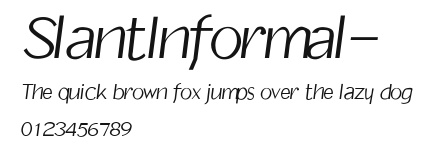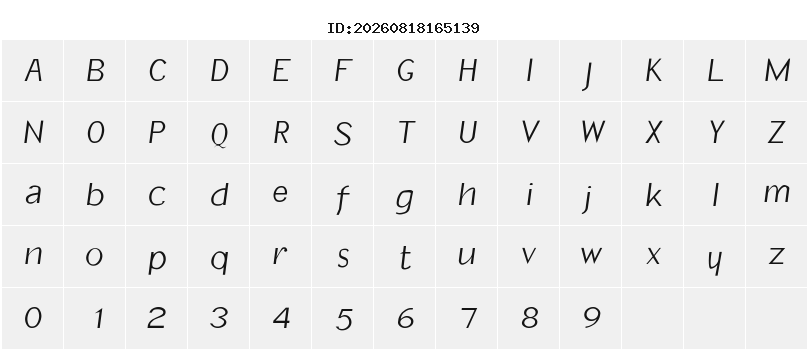
SlantInformal- Preview
• Font Name: SlantInformal-
• Full Font Name: SlantInformal-
• PostScript Name: SlantInformal-
• Copyright: Creator: PHILIP D.NOGUCHI
About SlantInformal-.ttf
SlantInformal-.ttf is a modern, elegant sans-serif font designed for ultimate readability and visual harmony. Perfect for branding, headlines, web design, and print materials.